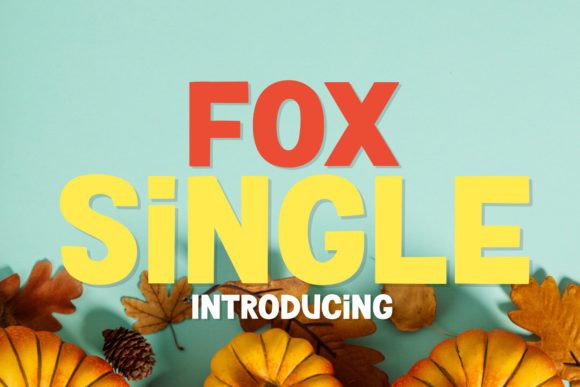
Introducing Fox Single Font: The Ultimate Sans Serif for Modern Designs
In the world of typography, a good font can make all the difference in creating a lasting impression. For designers and crafters looking for a strong and cool sans serif font, Fox Single is an excellent choice. This versatile font is perfect for use on publications, logos, business cards, or even printed on t-shirts. In this article, we’ll explore the features and benefits of Fox Single Font and why it’s a must-have for your design arsenal.
What is Fox Single Font?
Fox Single Font is a modern sans serif font designed to make a statement. Its clean and sleek lines make it perfect for a wide range of applications, from digital publications to print materials. The font’s strong and bold appearance ensures that your text will stand out, no matter the topic or context.
Key Features of Fox Single Font
- Strong and Cool Design: Fox Single Font boasts a unique and modern design that’s sure to grab attention.
- Versatile: This font is perfect for use on various materials, including publications, logos, business cards, and even printed merchandise like t-shirts.
- Easy to Read: The clean and simple lines of Fox Single Font ensure that your text is easy to read, even at small sizes.
- Highly Legible: The font’s clear and distinct letterforms make it highly legible, reducing the risk of misreading or confusion.
Benefits of Using Fox Single Font
So, why should you choose Fox Single Font for your next design project? Here are just a few benefits of using this amazing font:
- Instant Recognition: The bold and striking design of Fox Single Font ensures that your text will be instantly recognizable, making it perfect for logos and branding materials.
- Professional Look: The clean and modern design of Fox Single Font gives your text a professional and polished look, making it ideal for business cards, resumes, and other formal documents.
- Creativity Unleashed: With Fox Single Font, you can experiment with a wide range of design possibilities, from bold and colorful graphics to sleek and minimalist layouts.
Use Cases for Fox Single Font
Fox Single Font is an incredibly versatile font that can be used in a wide range of applications. Here are some ideas to get you started:
- Publications: Use Fox Single Font as a headline or body font for magazines, newspapers, and online publications.
- Logos and Branding: Create a lasting impression with Fox Single Font as a logo font for your business or brand.
- Business Cards: Stand out from the crowd with Fox Single Font on your business cards.
- Merchandise: Print Fox Single Font on t-shirts, hats, and other merchandise for a bold and eye-catching look.
Tips for Using Fox Single Font
To get the most out of Fox Single Font, here are some tips to keep in mind:
- Experiment with Sizes: Fox Single Font looks great at a wide range of sizes, from small body text to large headlines.
- Play with Colors: Try pairing Fox Single Font with bold and bright colors to create a striking visual effect.
- Mix and Match: Combine Fox Single Font with other fonts to create a unique and interesting typographic look.
In conclusion, Fox Single Font is an exceptional sans serif font that’s perfect for designers and crafters looking for a strong and cool font for their next project. With its versatile design, ease of use, and highly legible letterforms, Fox Single Font is sure to become a staple in your design arsenal. So why wait? Download Fox Single Font today and start creating stunning designs that will leave a lasting impression!